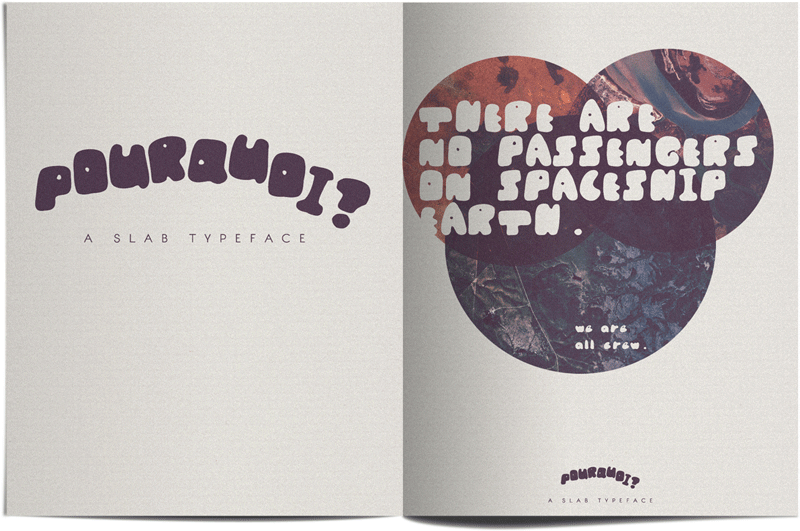
I was bored and made this fun slabby font! Please feel free to use for personal use, but credit me (Cherith Walsh) if you use it for commercial use. Thanks and enjoy! |